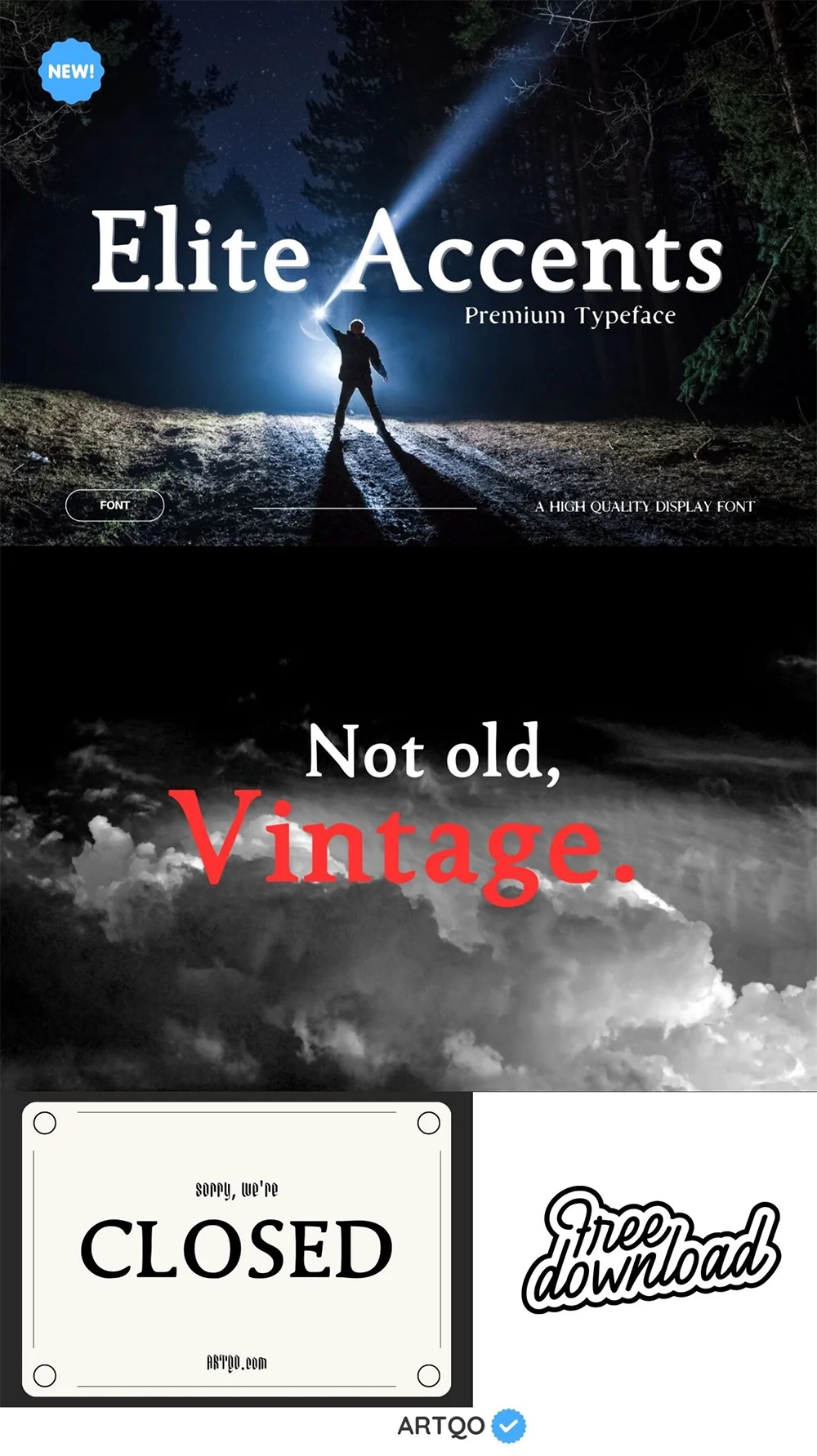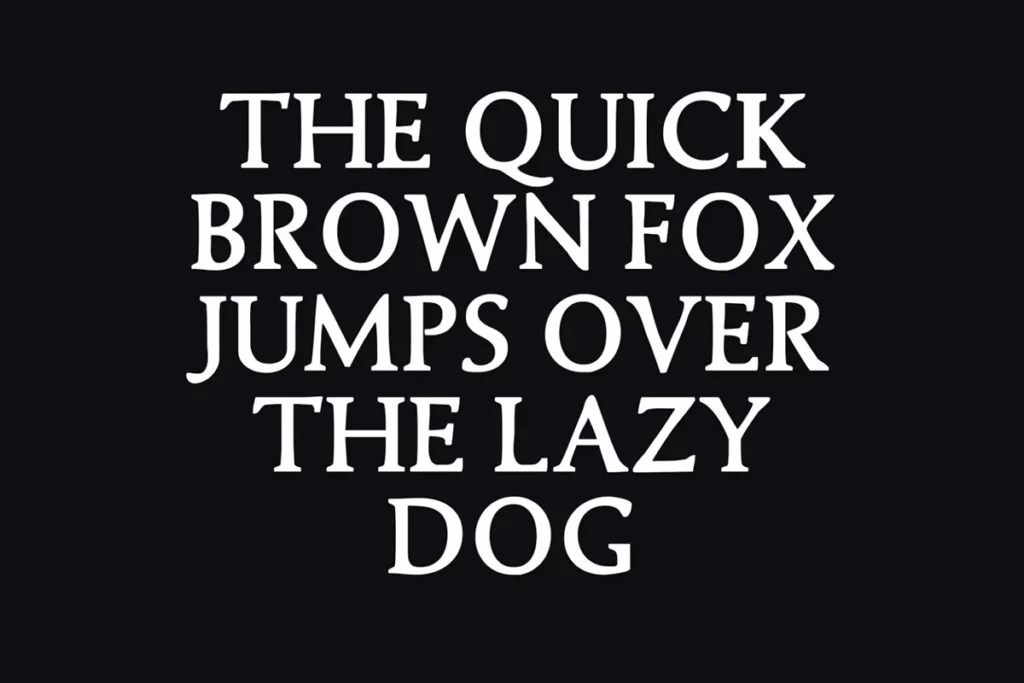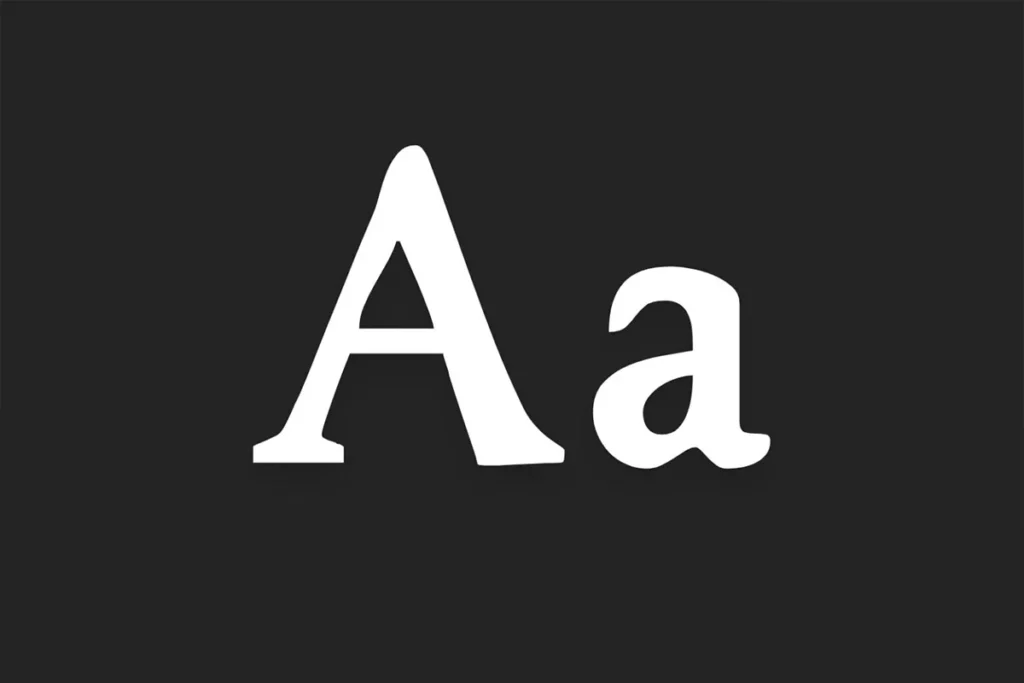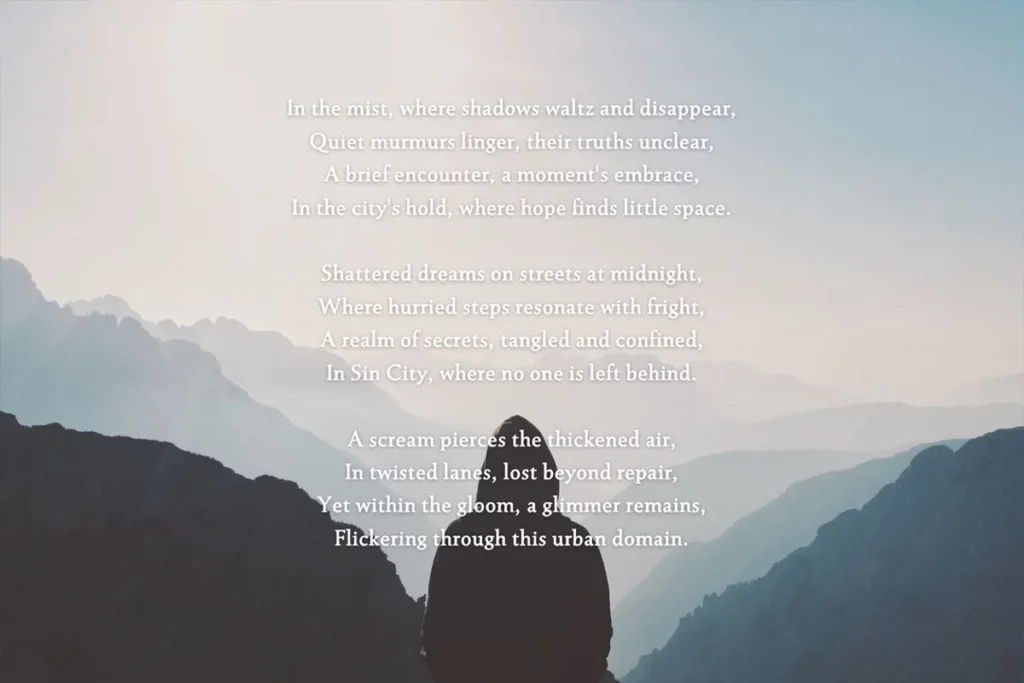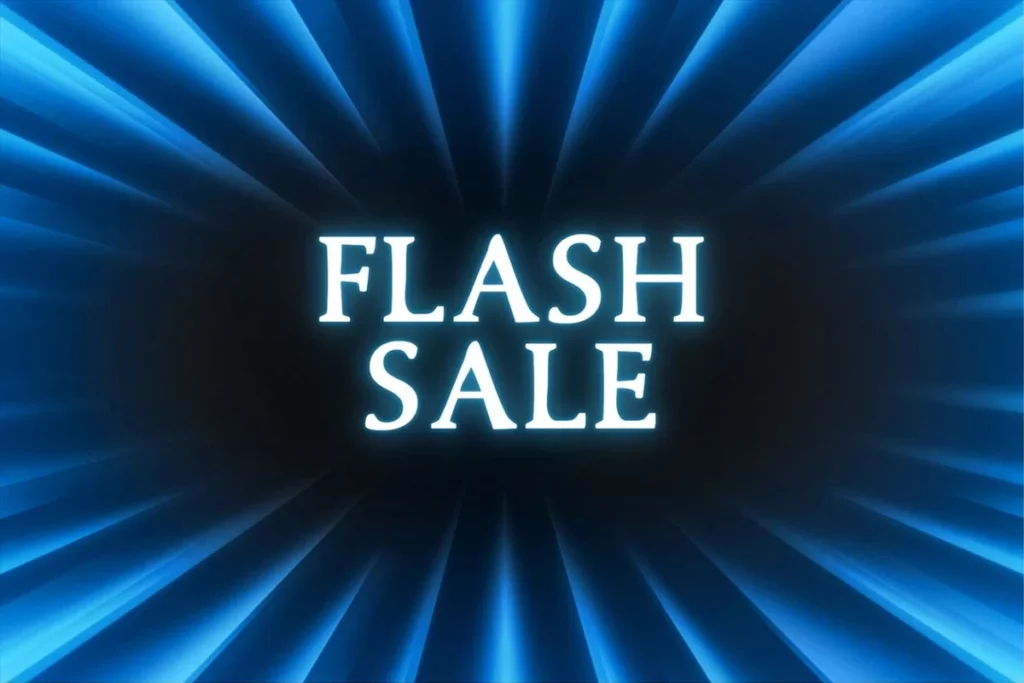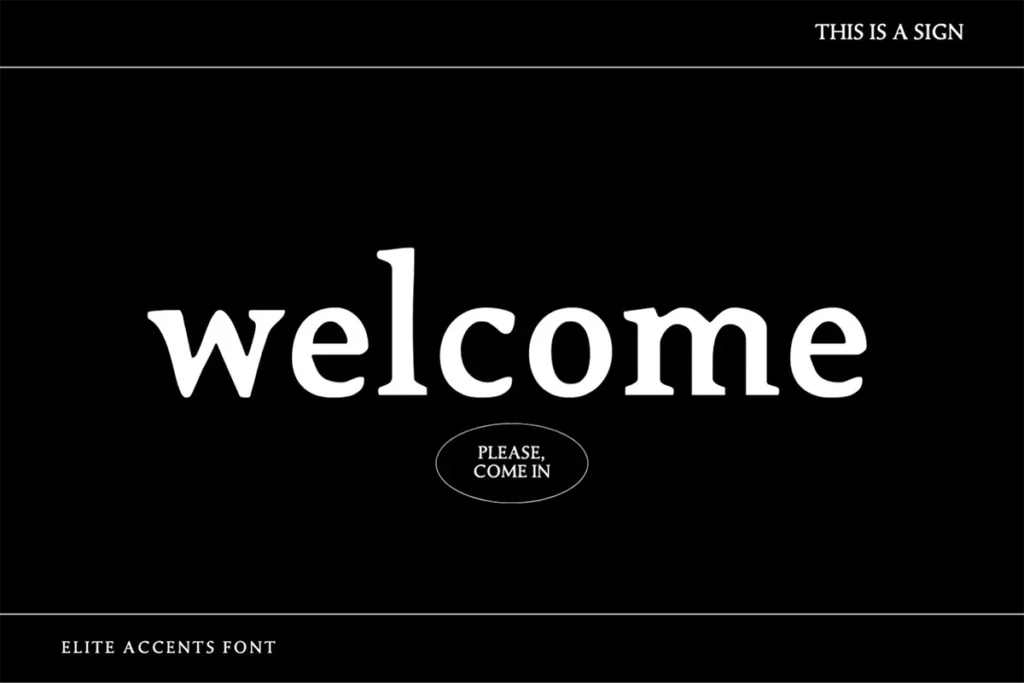
Elite Accents Font
Elite Accents Font is a bold and elegant serif typeface designed for modern projects. Featuring unique diacritic accents, this font is perfect for any project that demands sophistication and readability. Its bold lines and distinct serifs make it versatile for a range of uses, from digital to print media.
Key Features:
- Strong serif design with accentuated diacritic marks
- Versatile for various display purposes
- Elegant, timeless look suitable for both modern and classic designs
- Full upper and lower case letters
- Multilingual support with accented characters
Use Cases:
- Headlines & Titles: Make a bold statement with Elite Accents in headlines, blog titles, or posters.
- Signage & Branding: Use it for logos, business cards, or shop signs for a sophisticated look.
- Invitations & Cards: Perfect for wedding invites, event announcements, or personalized cards.
- Web Design: Ideal for headers and emphasis text on websites, ensuring clarity with a professional appearance.
- Advertising: Use in banners, flyers, and promotional material to grab attention and leave a lasting impression.
Elite Accents Font brings both charm and boldness to your typography, ensuring that your designs stand out with a blend of vintage and modern aesthetics. Whether for digital projects, print, or branding, this font elevates your work with its sleek lines and powerful presence.
Elite Accents font is perfect for those who want to keep things simple but still stand out with a personal, handmade look.